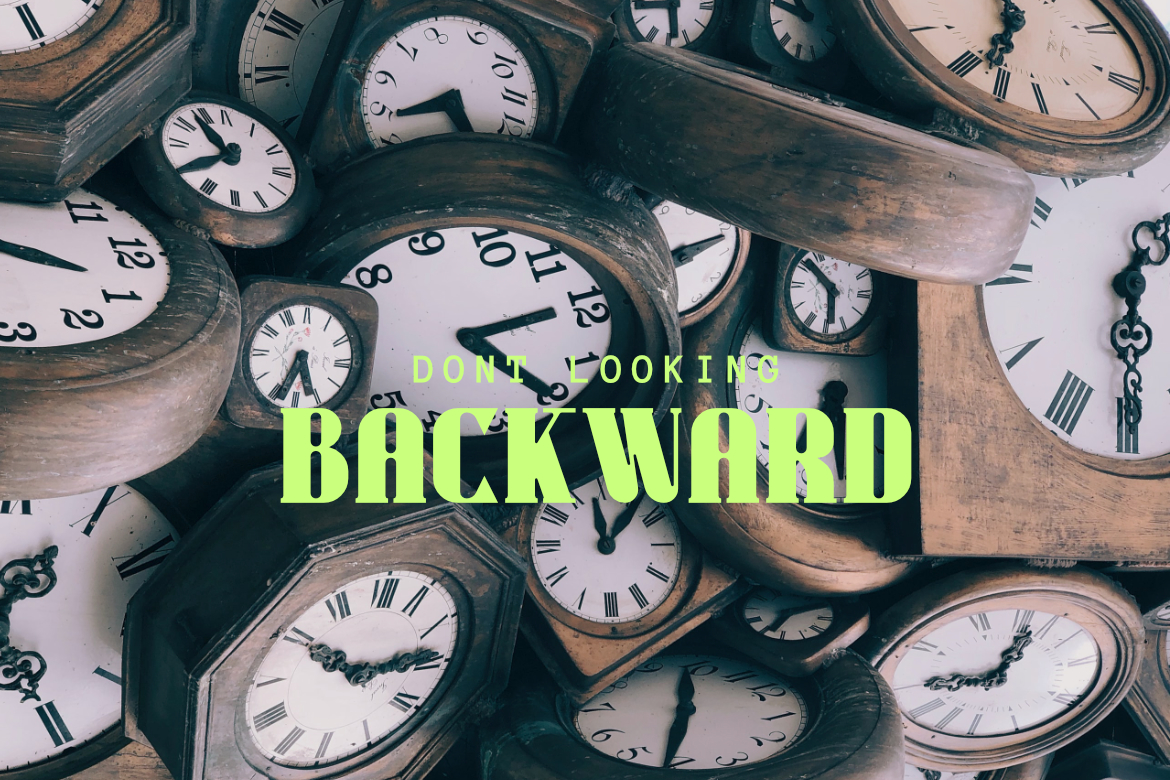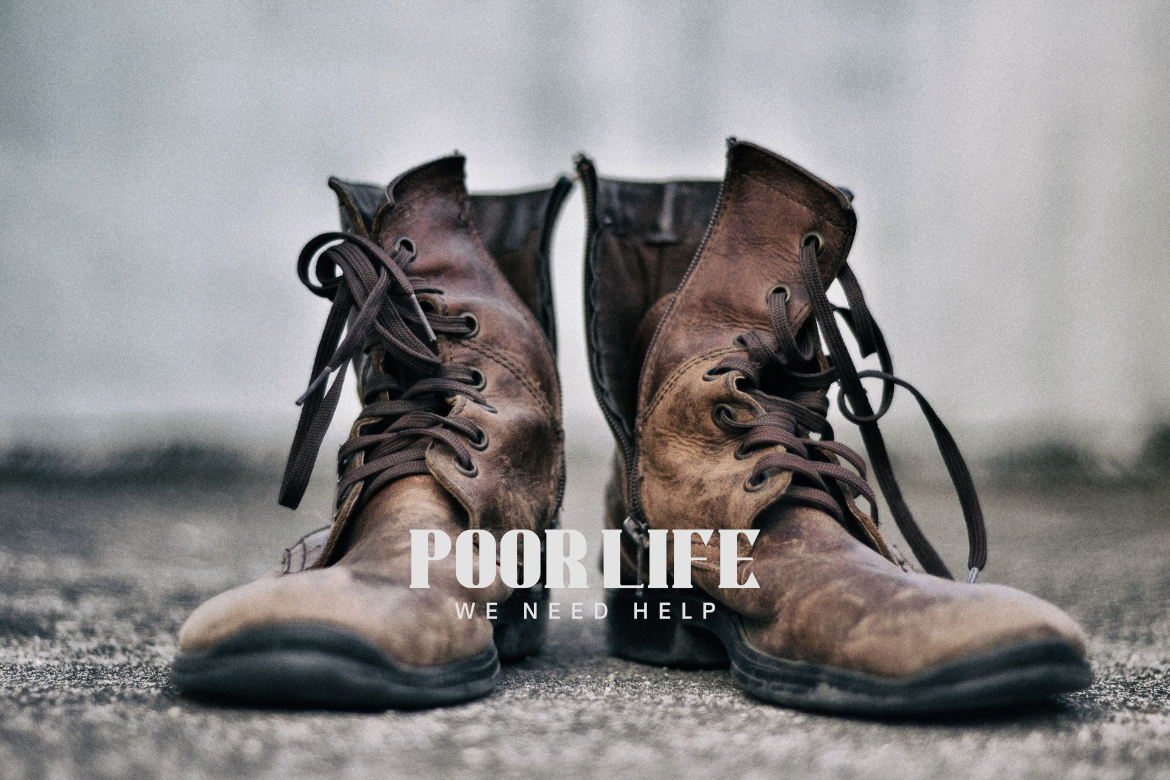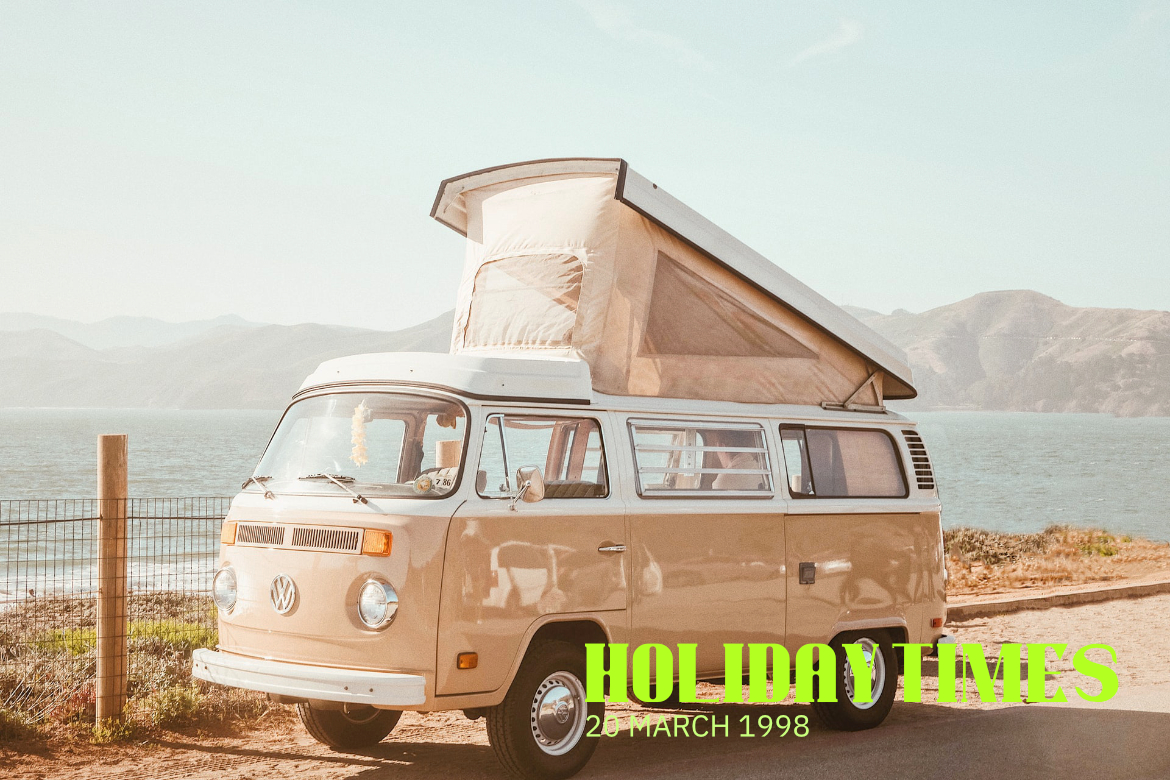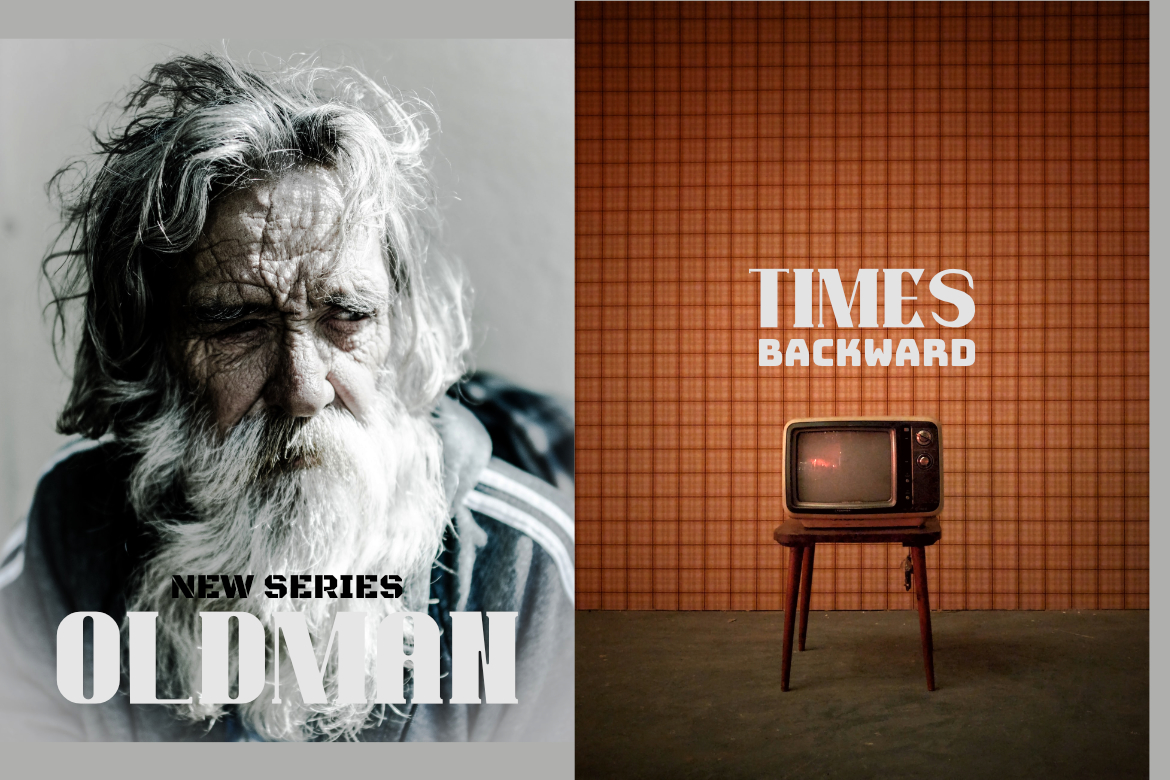
Warriot Serif Font
This is a bold and retro styled serif font. It is suitable for logotype, headline font, in corporate identity, brand identity, apparel industry, poster, music, movie, game, magazine, book, comic, cartoon, YouTube, Instagram, website, or any of your creative design projects.